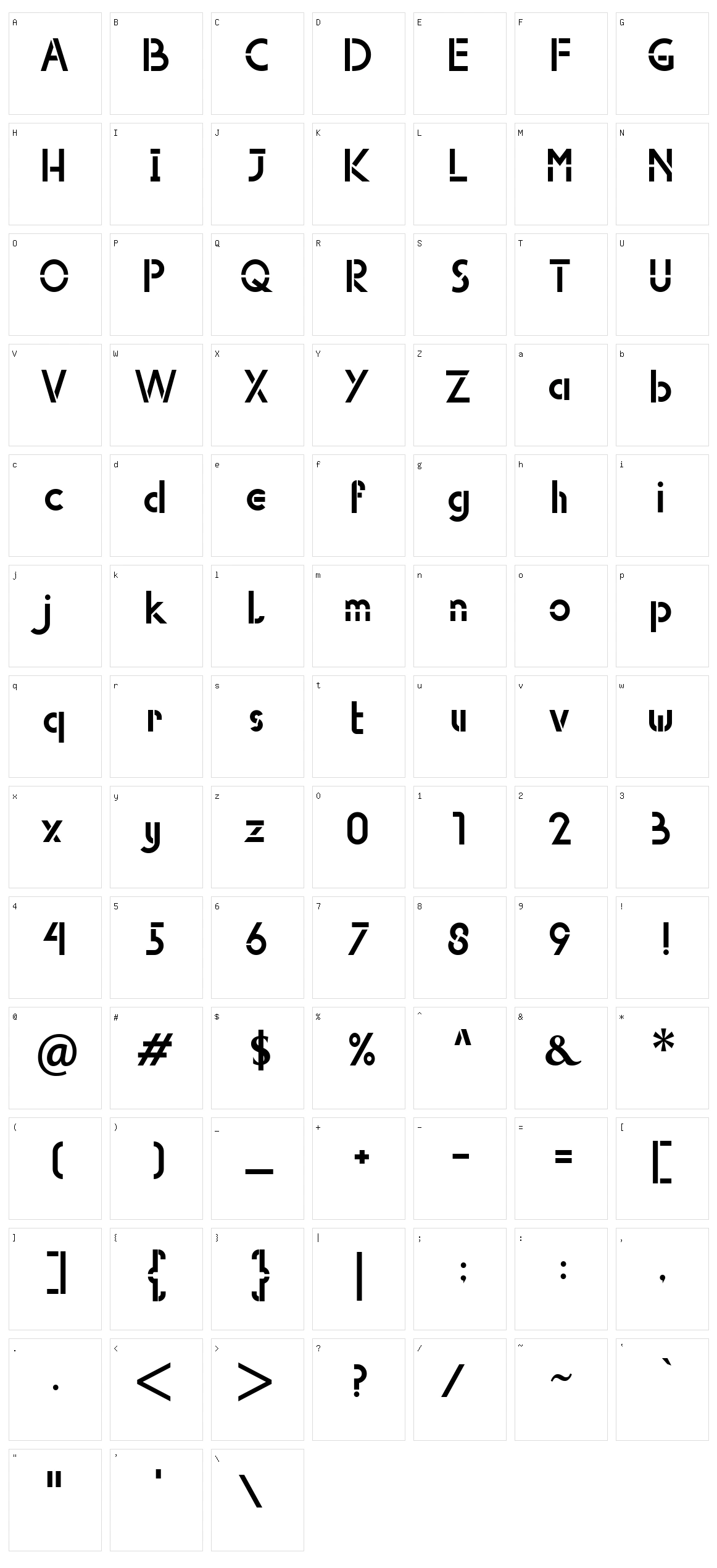
The free font Avrojaks is carefully designed by Breh Creative, showcasing a thoughtful balance of creativity and usability and falls under the Stencil font style. When you download the ZIP file, it contains only 56.43 KB of font files, making it lightweight and quick to download. Please review the license details below to understand permitted usage and distribution rights. If license information is not available, we recommend using this font for personal projects only or contacting the author directly for commercial usage permissions.